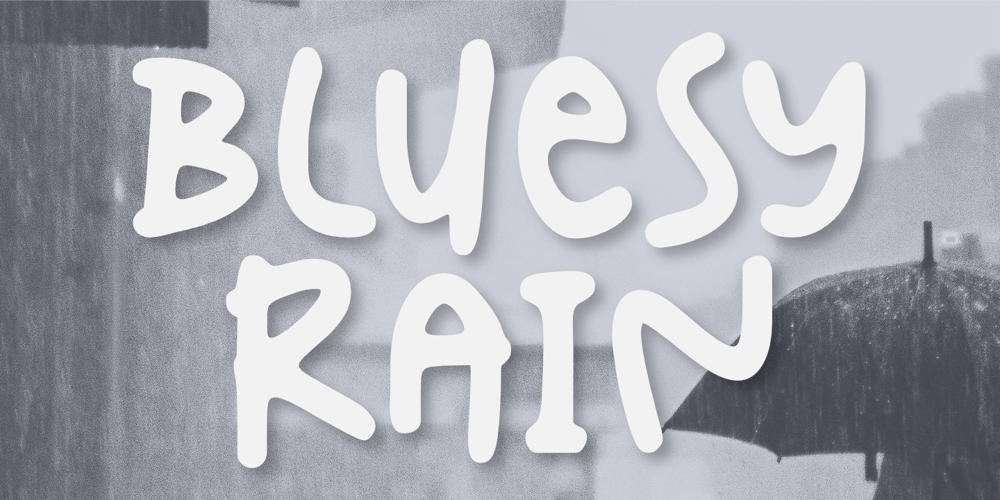
Bluesy Rain Font Family was designed by Aldy Sidik and published by Epiclinez. Bluesy Rain contains 1 styles and family package options. Introducing Bluesy Rain –a cute and fun typeface suitable for creating eye-catching posters, logos, and crafting projects. From its bouncy letterforms to its playful style, hopefully, Bluesy Rain can bring a touch of joy to your design. Thank You